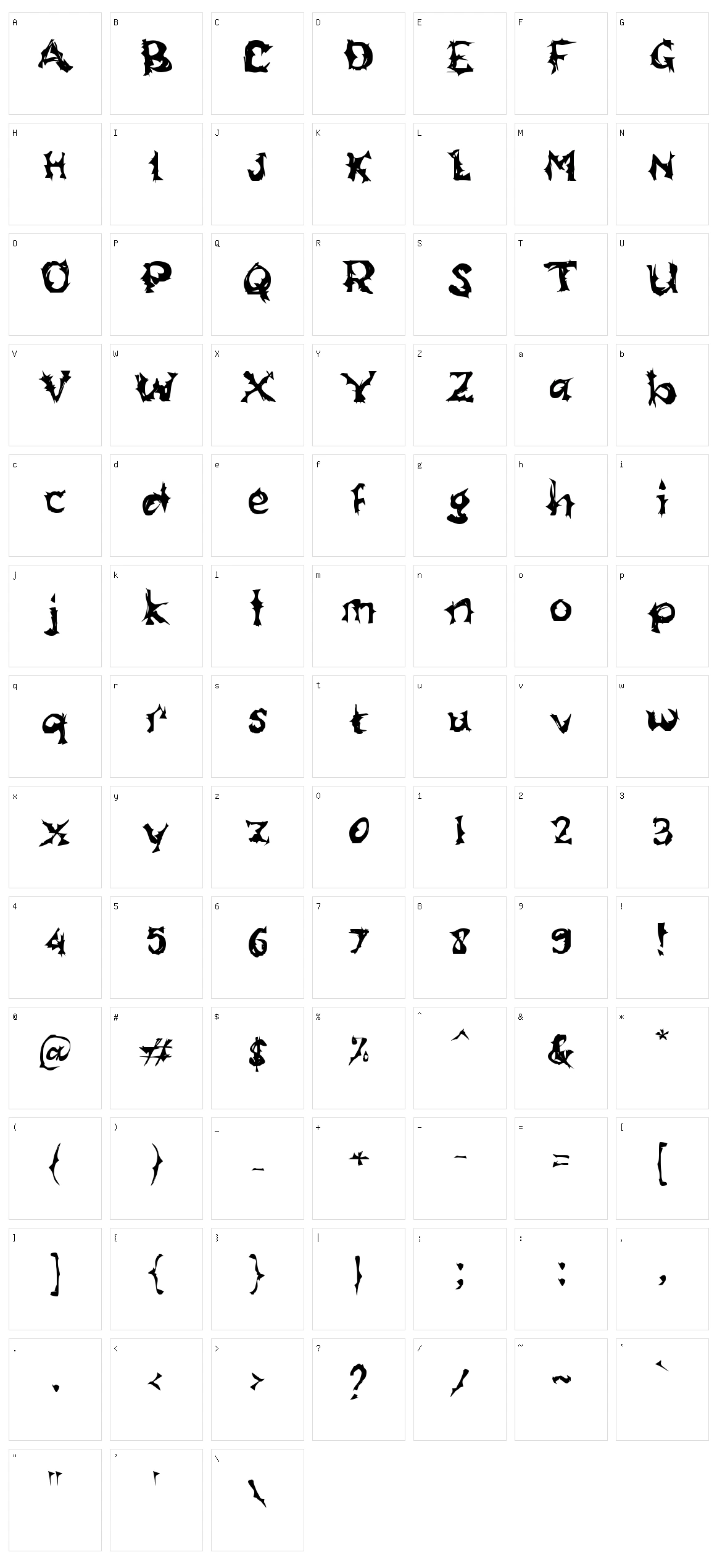
The free font b Batman Robinson is carefully designed by wep, showcasing a thoughtful balance of creativity and usability and falls under the Horror font style. When you download the ZIP file, it contains only 25.73 KB of font files, making it lightweight and quick to download. Please review the license details below to understand permitted usage and distribution rights. If license information is not available, we recommend using this font for personal projects only or contacting the author directly for commercial usage permissions.